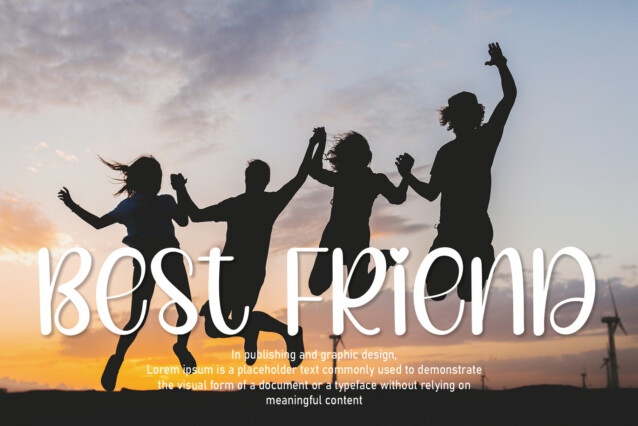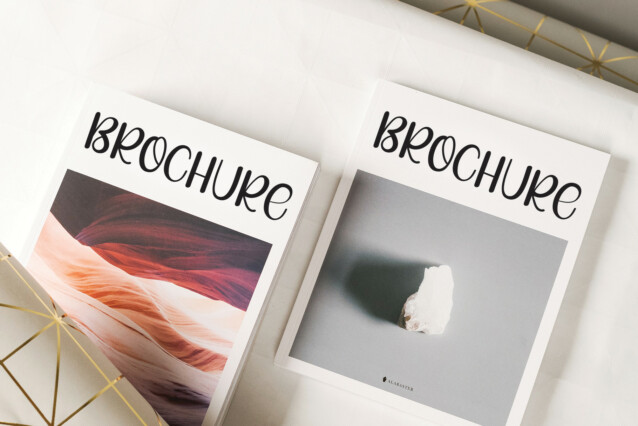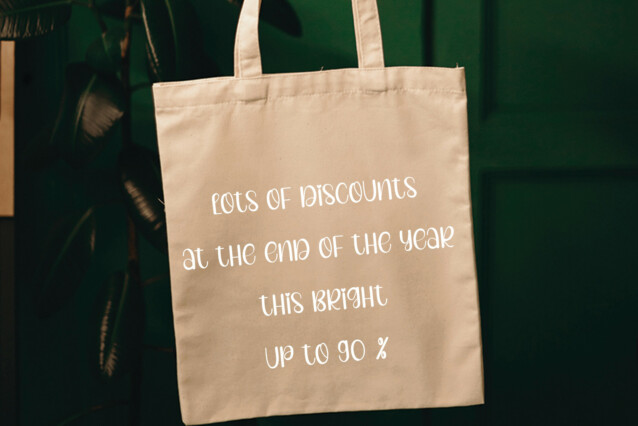
Snacks For Children Display Font
Snacks For Children Display Font is a fun and friendly handwritten font. Add it to your crafty ideas and you will love the results!